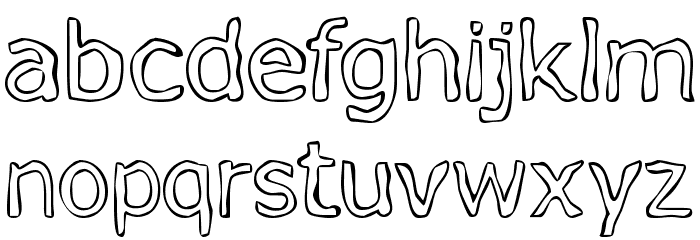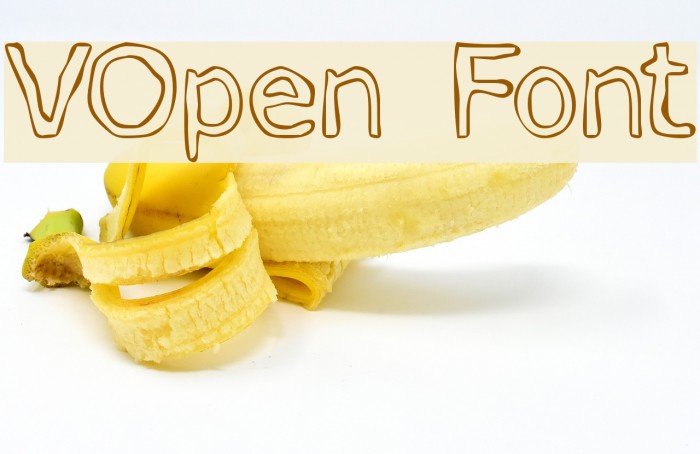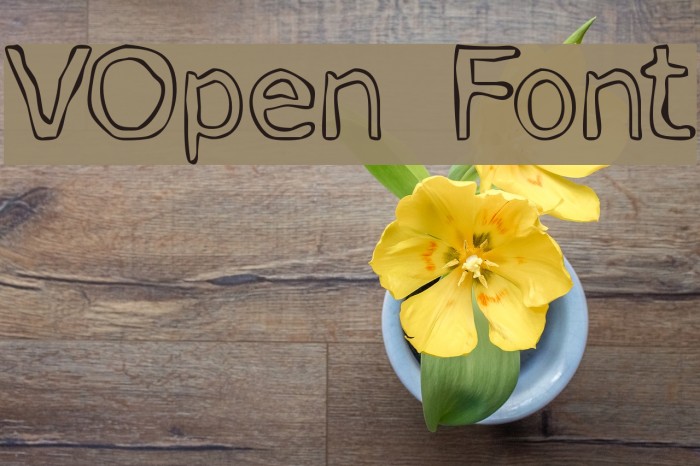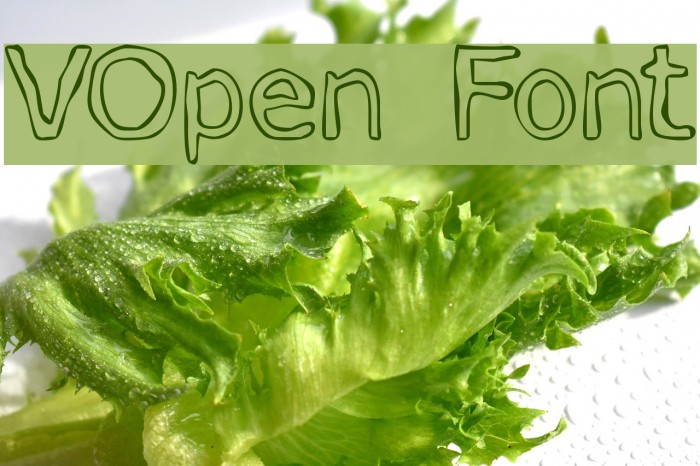
VOpen Font
This font features a playful and casual outline style, with each character having a hand-drawn appearance. The letters are slightly irregular, giving them a whimsical and approachable feel. The uppercase and lowercase characters maintain a consistent style, with rounded edges and a uniform stroke width. The numbers and special characters follow the same design principles, ensuring a cohesive look across all elements. This font's unique outline design makes it stand out, adding a touch of creativity and fun to any project.
A playful, hand-drawn outline font with a whimsical and casual style.
- Proposed Projects: Ideal for children's books, playful branding, greeting cards, and creative posters.
- Overall Style: Casual and Whimsical
- Use Case: Headlines, Logos, Creative projects